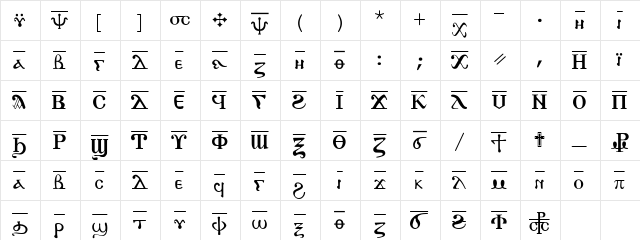
AntoniousOL OverLine
Design Context for AntoniousOL Typeface
AntoniousOL takes a measured approach to typography — its balanced proportions and neutral character make it a reliable workhorse for both digital and print work.